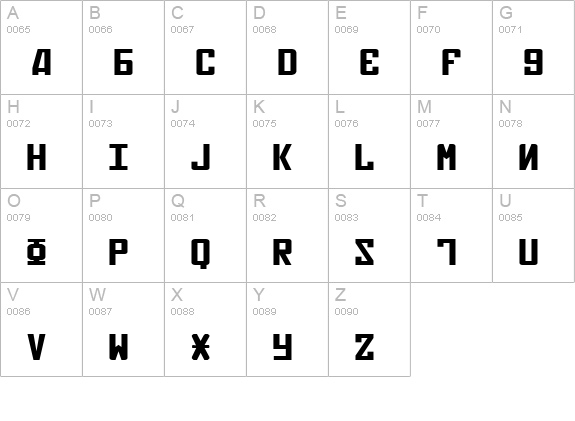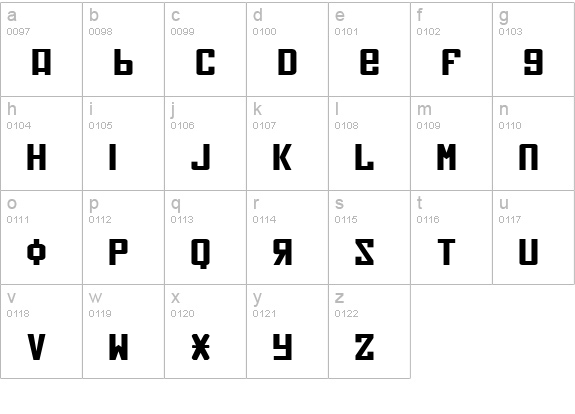
Soviet Expanded is a distinctive, extended-width variant in the Soviet typeface family \xE2\x80\x94 well suited to design and typography projects.
Soviet Expanded font is a bold and powerful typeface that captures the essence of the Soviet era with its strong and commanding presence. This font is perfect for creating eye-catching headlines, striking posters, and impactful designs that demand attention. Soviet Expanded font features a unique combination of sharp edges and thick strokes, giving it a distinct and authoritative appearance. Its expanded letterforms add an extra level of boldness, making it ideal for projects that require a strong visual impact. One of the standout features of Soviet Expanded font is that it is freely available to download at FontsMarket.com. This means that designers and creatives can access and utilize this powerful font without any restrictions. Whether you're working on a personal project or a commercial endeavor, Soviet Expanded font gives you the freedom to express your ideas and convey your message with confidence. With its extensive character set, including uppercase and lowercase letters, numbers, punctuation marks, and special symbols, Soviet Expanded font provides versatility and flexibility for a wide range of design applications. It is compatible with various design software and can be easily incorporated into your projects. Whether you're aiming to create impactful branding materials, captivating advertisements, or memorable social media graphics, Soviet Expanded font is your go-to choice. Its bold and commanding presence will ensure that your message stands out and leaves a lasting impression. Download Soviet Expanded font for free at FontsMarket.com and unleash the power of this iconic typeface in your designs. Take advantage of this opportunity to enhance your creative process and captivate your audience with the boldness and authority of Soviet Expanded font.